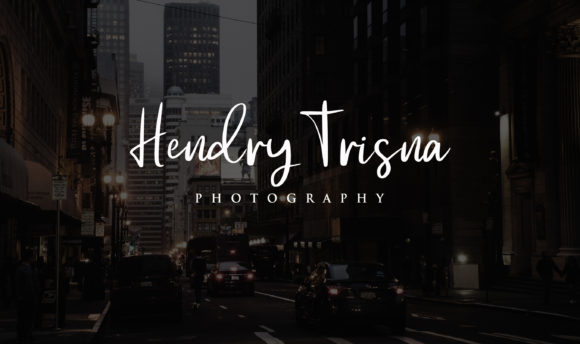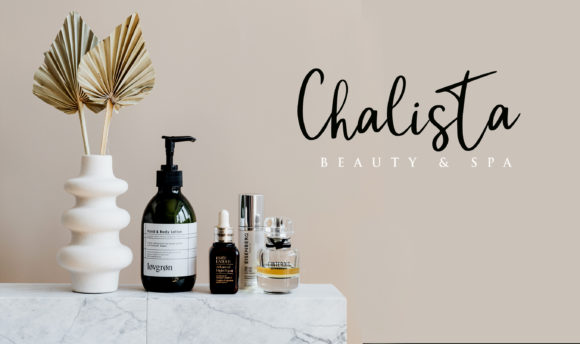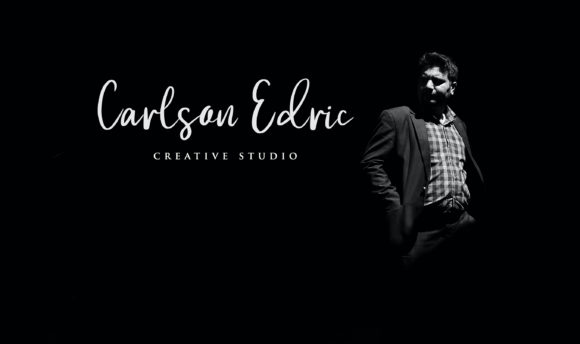
About Journalist Font
Journalist is a beautiful and trendy handwritten font that flows, through natural hand movements, with the help of a pen. This font is so distinctive that it can be applied to logos, brochures, typographic quotes, social media covers, magazines or books, website headers, packaging designs, brand clothing, and many other products.